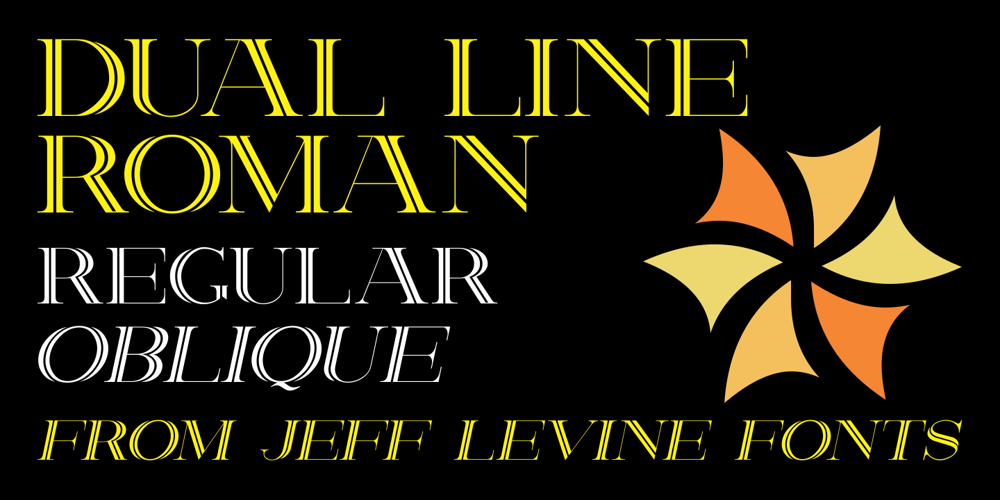
Dual Line Roman JNL Font Family was designed by Jeff Levine and published by Jeff Levine. Dual Line Roman JNL contains 2 styles and family package options. Spotted amongst the online page scans from a vintage lettering book, the typeface originally called “Didot Moderne” served as the basis for Dual Line Roman JNL, which is available in both regular and oblique versions.Caps Only Fonts.